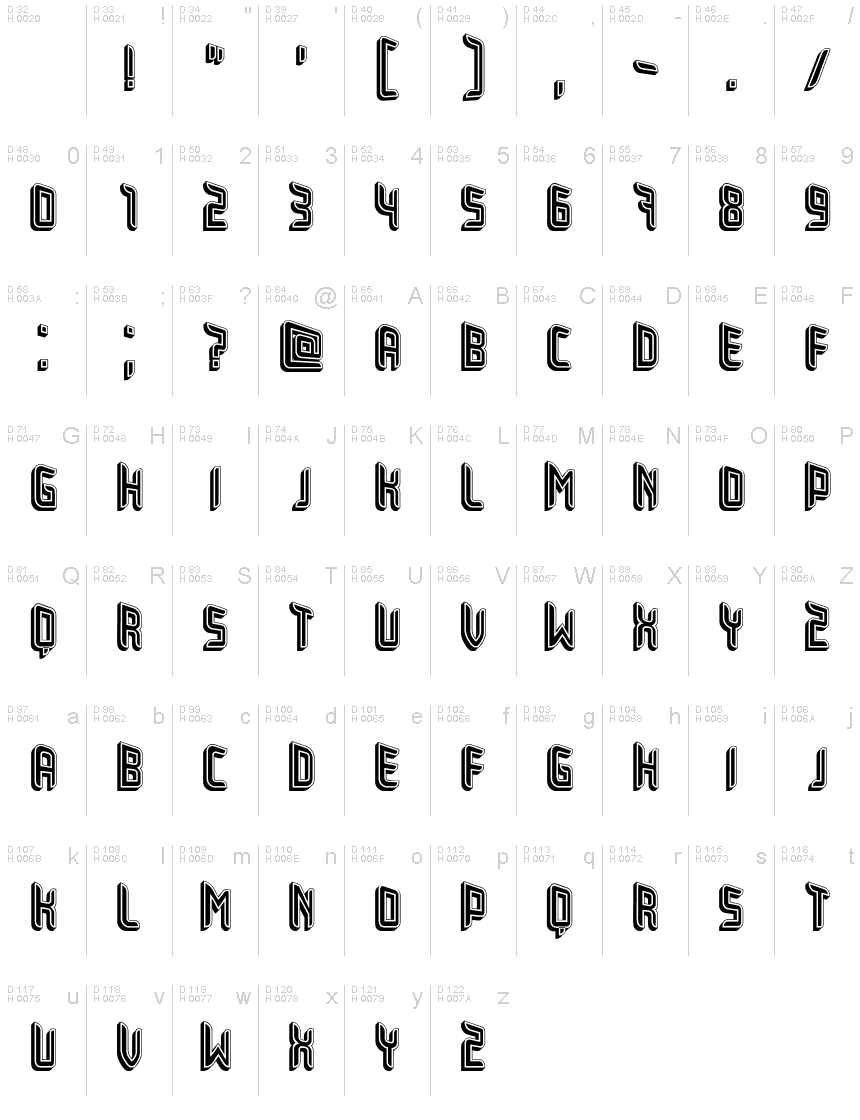
Pagbalik Regular
Pagbalik, the display font designed by Vladimir Nikolic, is the perfect choice for projects that require a bold and eye-catching typeface. With its unique pseudo 3d style and semi-light weight, Pagbalik adds depth and dimension to any design. Its condensed width makes it ideal for headlines, titles, posters, and banners that need to fit more text in less space without losing impact. Use Pagbalik to create dynamic logos or branding materials that stand out from the crowd. Whether you're working on a website or print project, this font is sure to make your message pop!